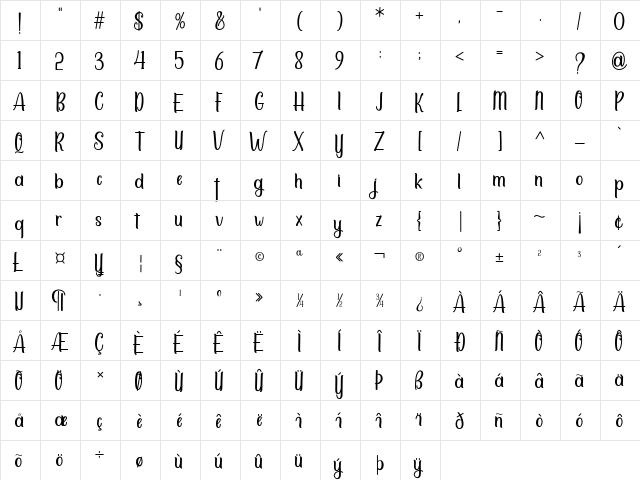
Sittella Regular
| Foundry | Parawtype |
Design Context for Sittella Typeface
Sittella is a composed and adaptable typeface that performs quietly and consistently across a wide range of design contexts.